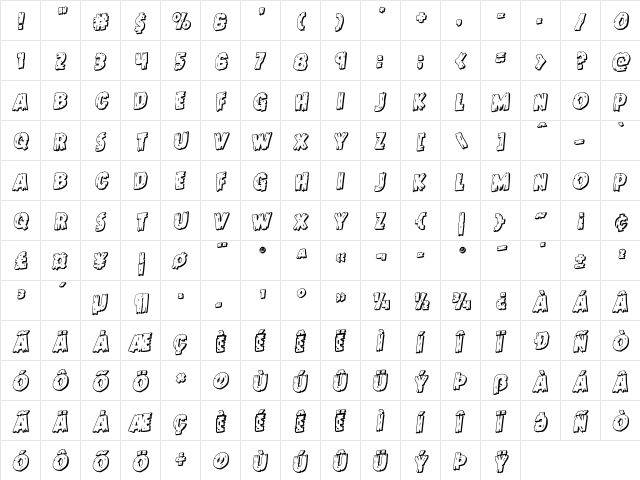
Dokter Monstro 3D Rotalic Italic
Design Context for Dokter Monstro 3D Rotalic Typeface
Dokter Monstro 3D Rotalic is a composed and adaptable typeface that performs quietly and consistently across a wide range of design contexts. The slanted form adds forward momentum and visual energy.
Pro Tip: Try Dokter Monstro 3D Rotalic for annotation and caption copy alongside an upright companion — the contrast in angle creates a dynamic but ordered typographic system.